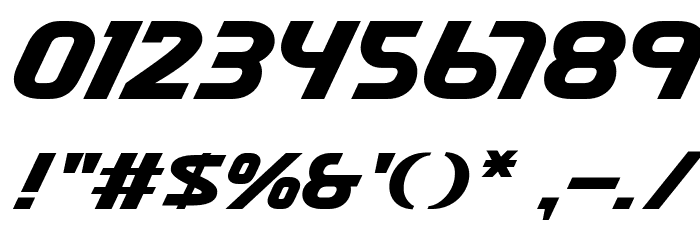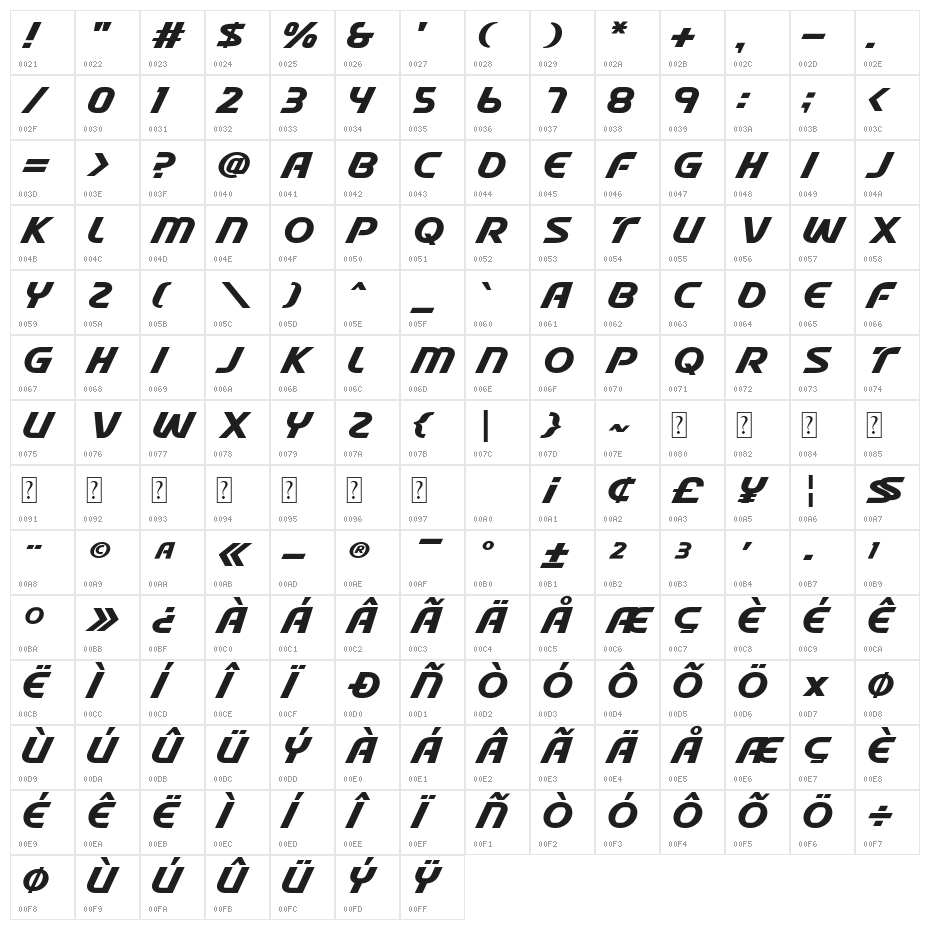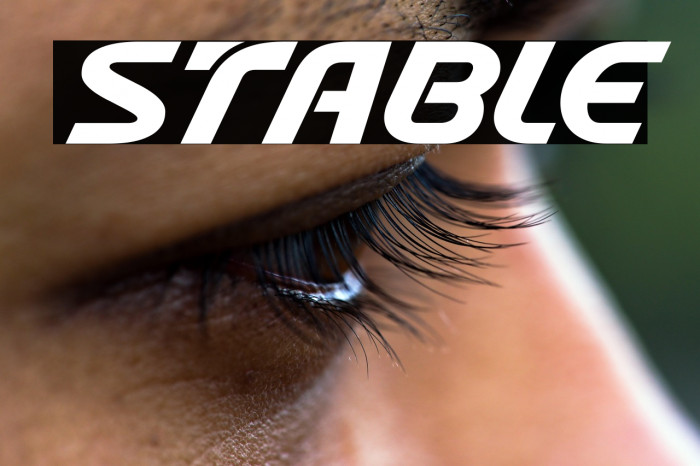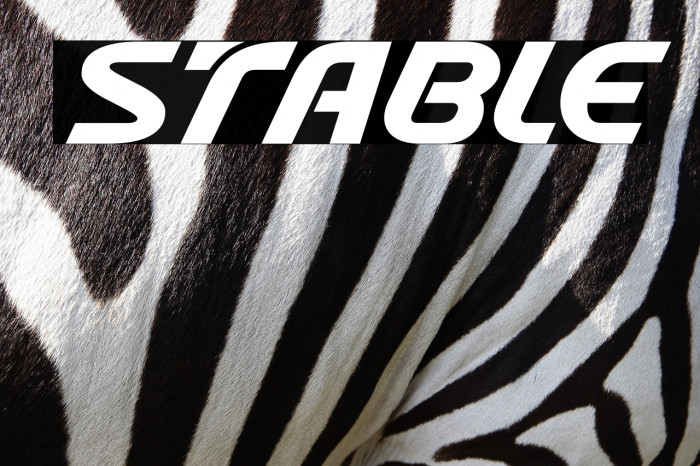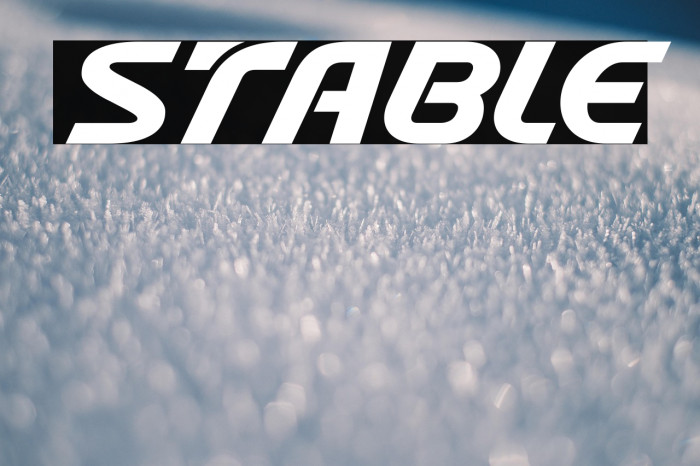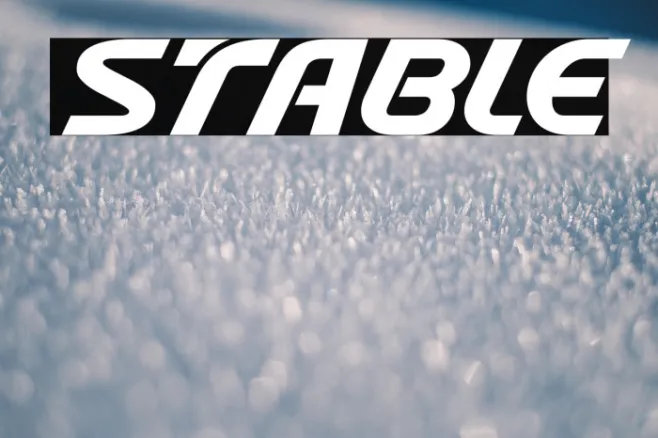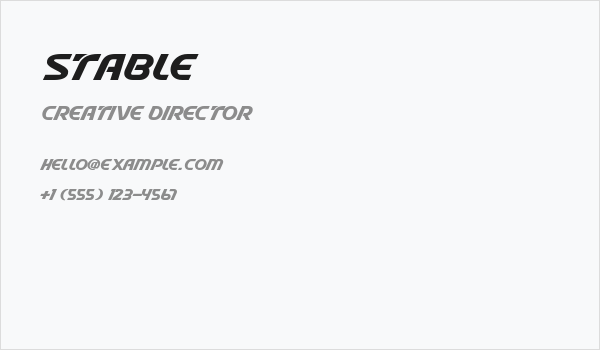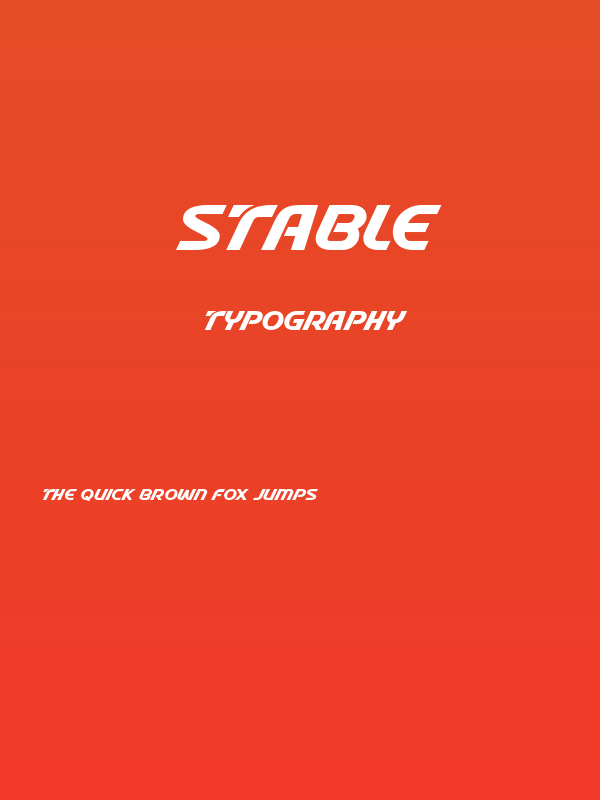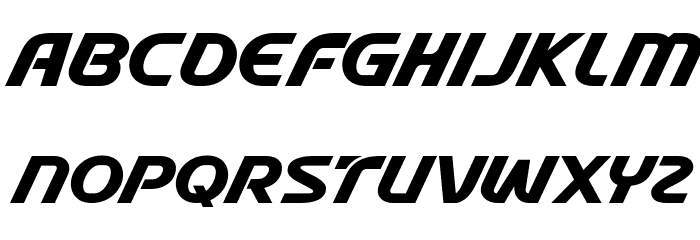
Stable Font
Stable Description
This font features a bold, italicized style with a modern and dynamic appearance. The characters are slightly slanted, giving a sense of motion and speed. The strokes are thick and consistent, providing a strong visual impact. The design is clean and streamlined, with minimal decorative elements, making it suitable for contemporary and futuristic themes. The numerals and special characters maintain the same bold and italicized characteristics, ensuring uniformity across all glyphs.
| Use Case | Logos, Headlines, Advertising |
| Proposed Projects | Ideal for branding, sports team logos, automotive designs, and dynamic advertising materials. |